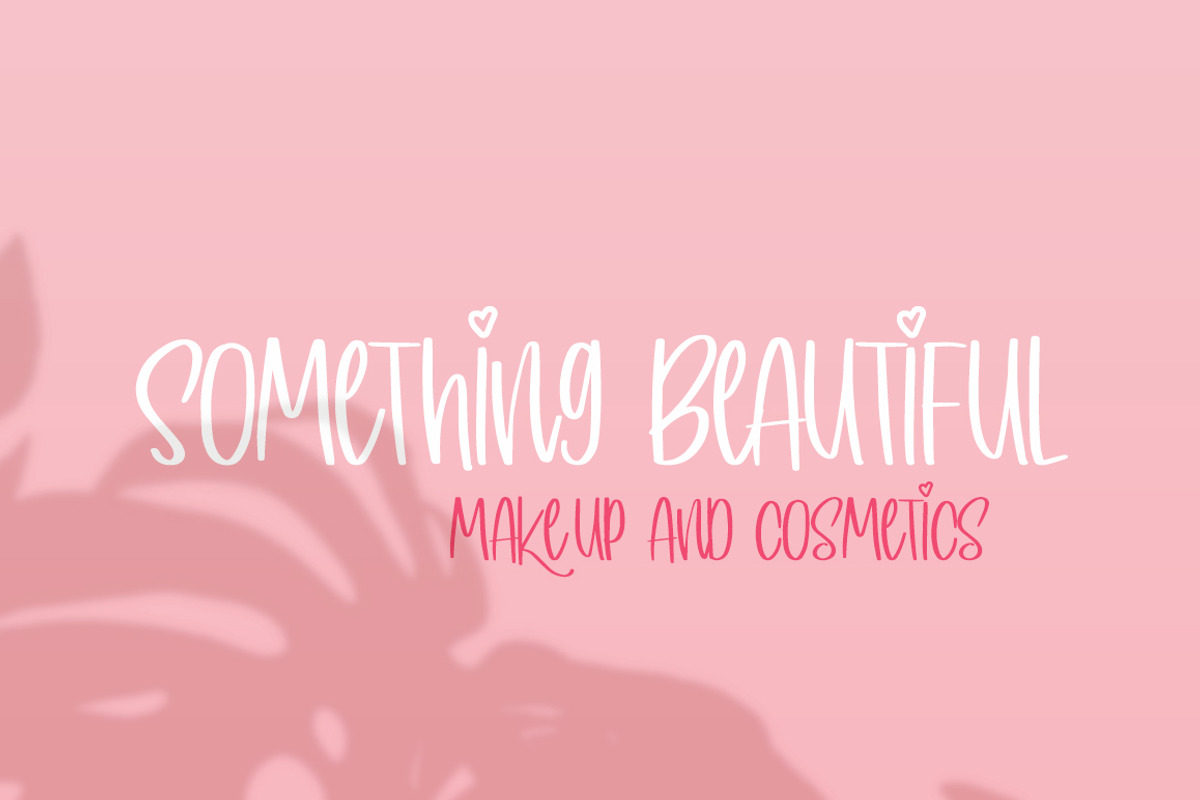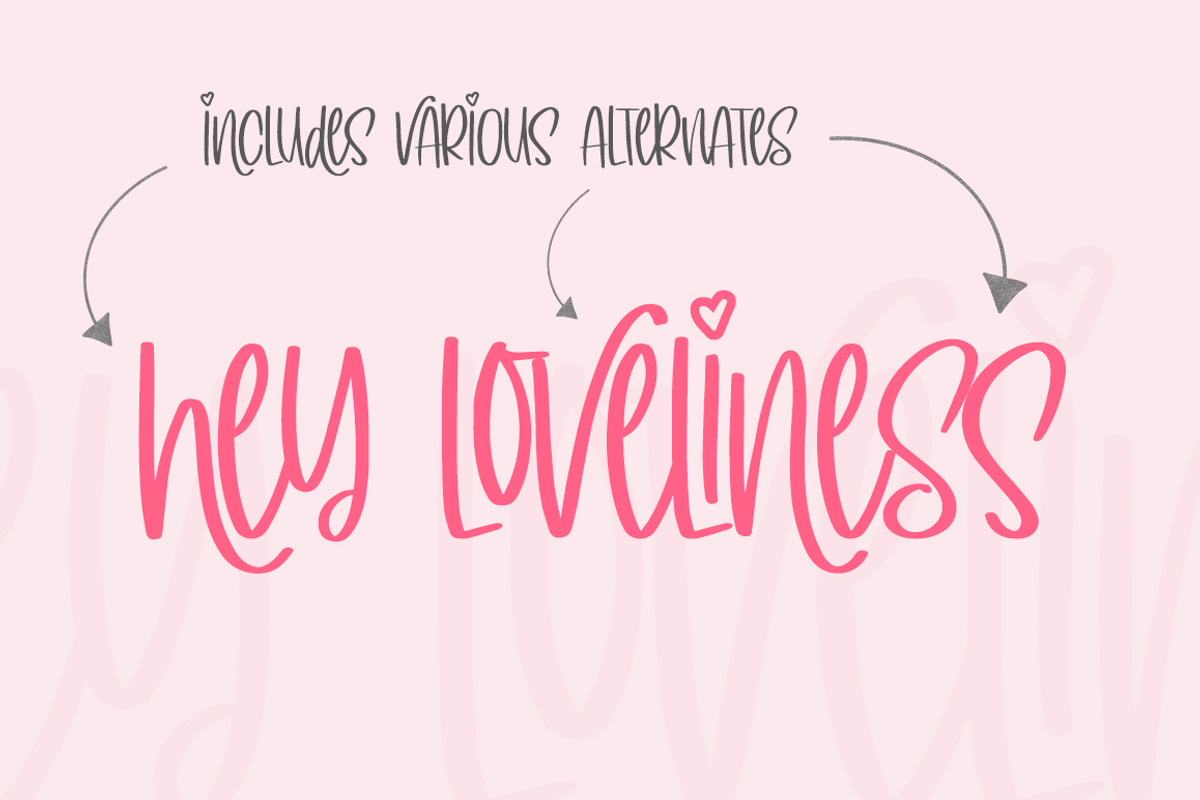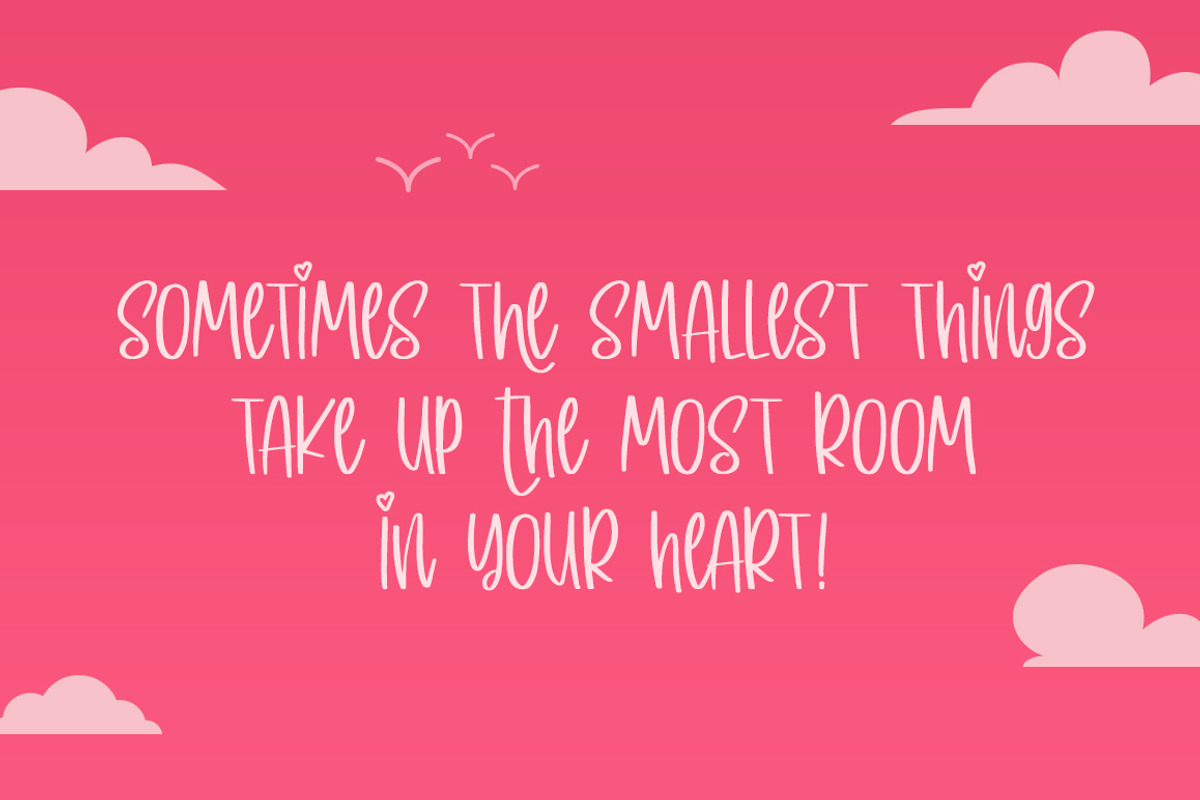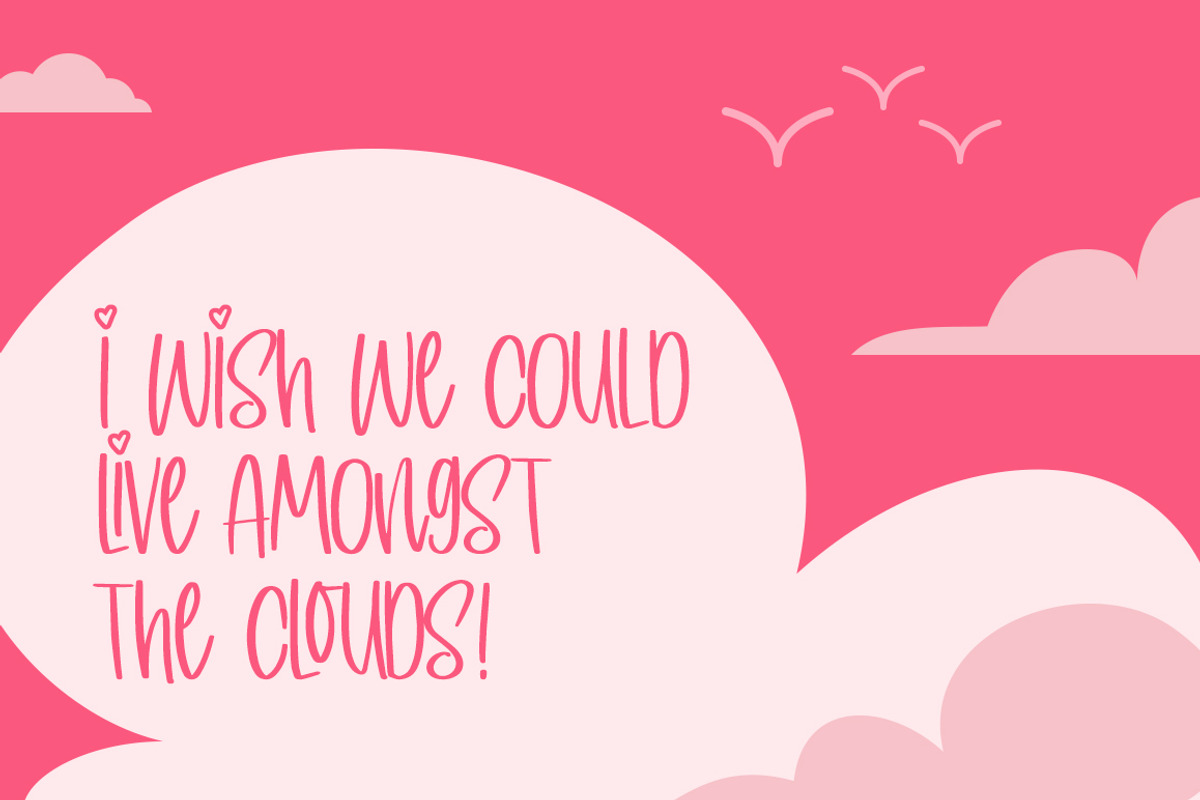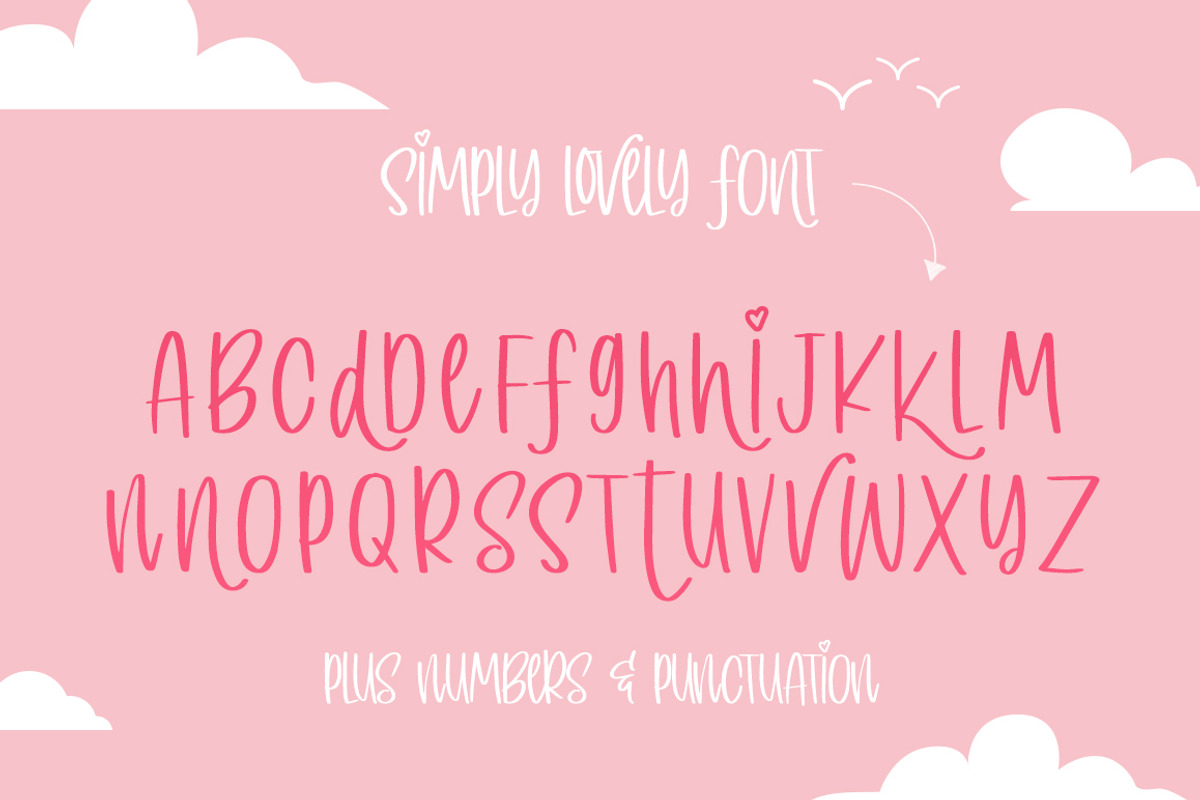
Simply Lovely Font
Simply Lovely is a brand new, handwritten font that is, well, simply lovely! It features fun, bouncy characters that help brig your designs to life! Ideal for quotes and logos, so get designing!
- It features fun, bouncy characters that help brig your designs to life!
Why Simply Lovely Font is worth a look
Simply Lovely Font by Salt & Pepper Designs fits naturally into Branding, posters, packaging, typography.